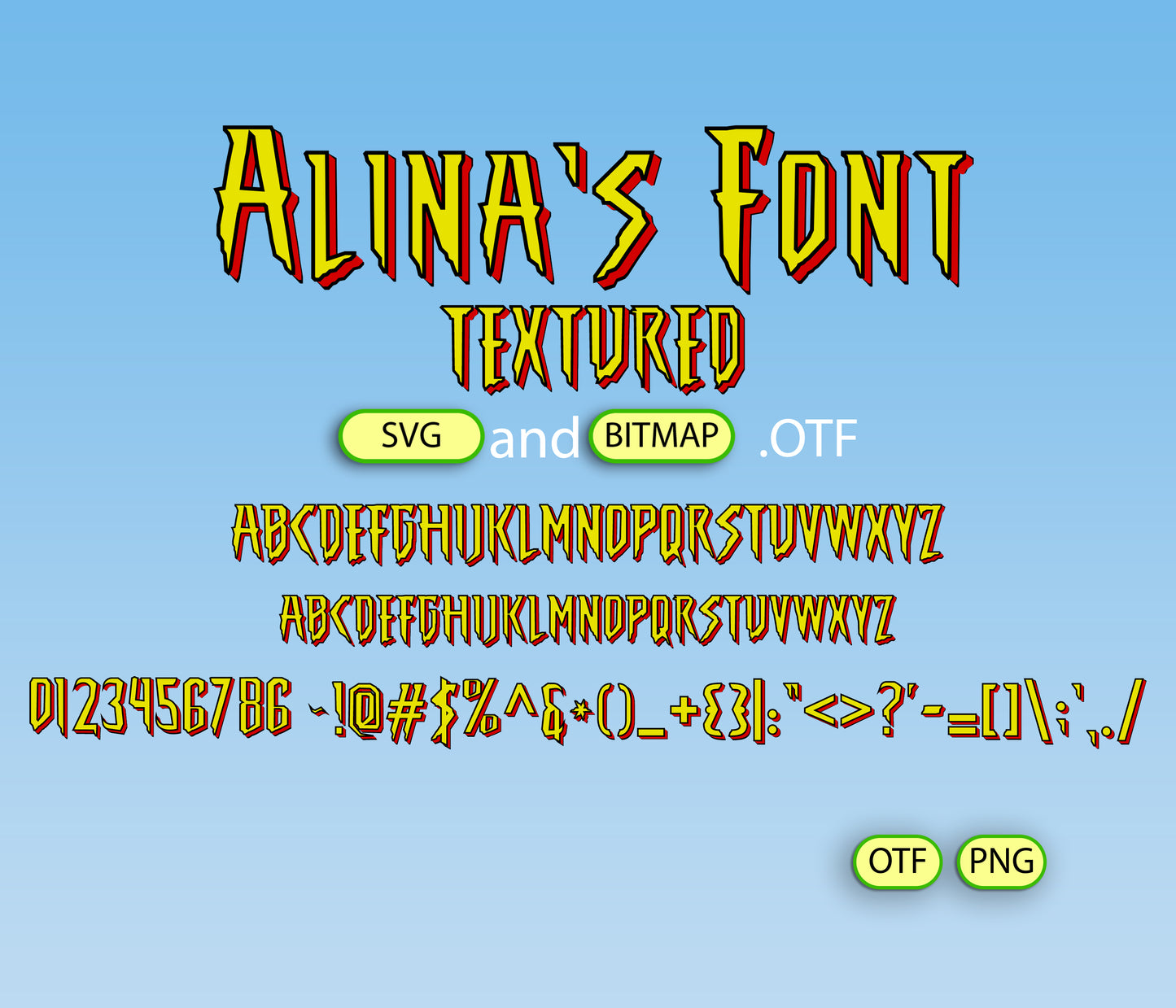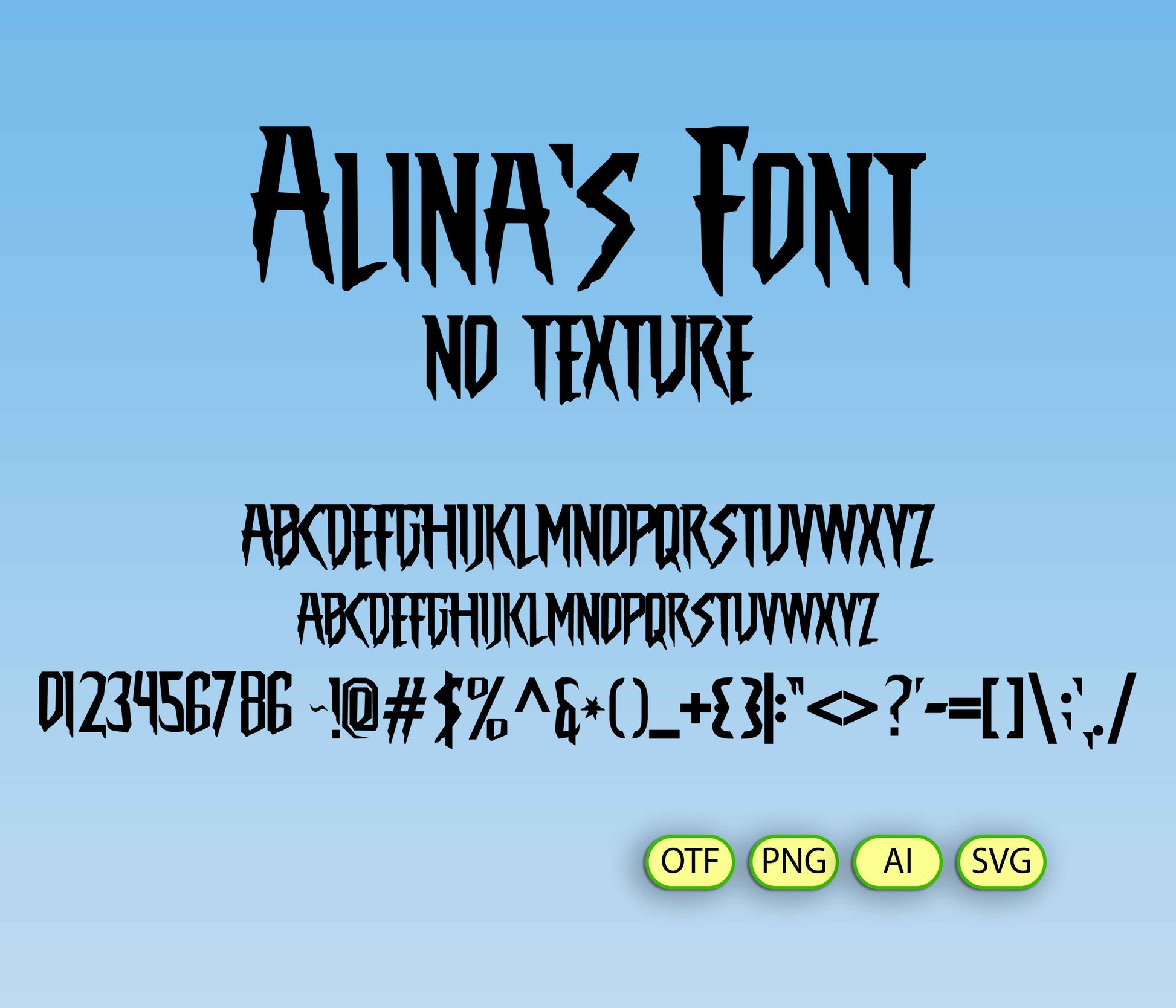
Superhero Legend Font Textured
Thrilling World Font: Inspired by a Superhero Legend
Leap into the action-packed universe with our custom-designed Thrilling World font, inspired by a renowned superhero comic series and movies. This font embodies the spirit of heroic adventures, marked by thrilling action, complex characters, and a deep sense of heroism. Each character in the Thrilling World font reflects agility, strength, and the iconic nature of this beloved superhero, making it perfect for projects capturing the essence and excitement of the superhero's world.
What Font is the Thrilling World?
Envision a typeface that encapsulates the dynamic and bold nature of a famous superhero. Our Thrilling World font mirrors the graphic and vibrant style of comics and movies, focusing on sleek, powerful letterforms that convey movement and heroism. It includes an extensive character set, featuring alphabets, numbers, and special symbols, offering a comprehensive toolkit for various design projects, from superhero-themed content to fan merchandise.
What Can You Do With Thrilling World Font?
The Thrilling World font is versatile and ideal for various creative applications:
1. Comic Book and Graphic Novel Art: Enhance comic strips and graphic novels with a font that reflects the superhero's style.
2. Themed Event Invitations: Create exciting invitations for superhero-themed parties, movie screenings, or conventions.
3. Merchandise Design: Perfect for designing t-shirts, posters, and other merchandise that appeals to superhero fans.
4. Digital Content and Social Media: Add a heroic touch to websites, blogs, and social media posts.
5. Promotional Materials: Use the font in marketing campaigns for events or products related to the superhero genre.
6. Interior Decor: Perfect for wall art, decals, or signage in entertainment spaces, comic shops, or themed rooms.
7. Editorial Design: Apply it to magazines, brochures, or publications focused on entertainment, superheroes, or pop culture.
8. Custom Stationery: Design personalized stationery with a superhero-inspired flair.
9. Creative Art and DIY Projects: Ideal for crafting, scrapbooking, and artistic projects inspired by the superhero universe.
The Thrilling World font is more than just a typeface; it's an invitation to the exhilarating and heroic world of a beloved superhero.